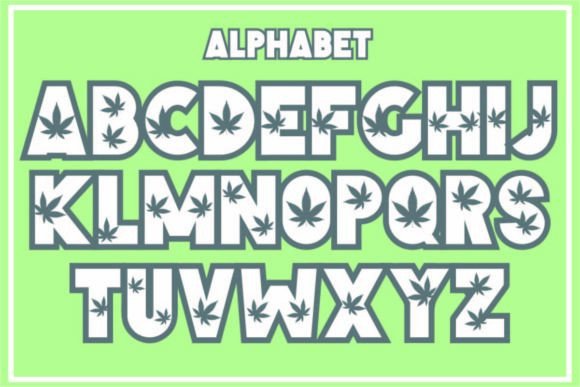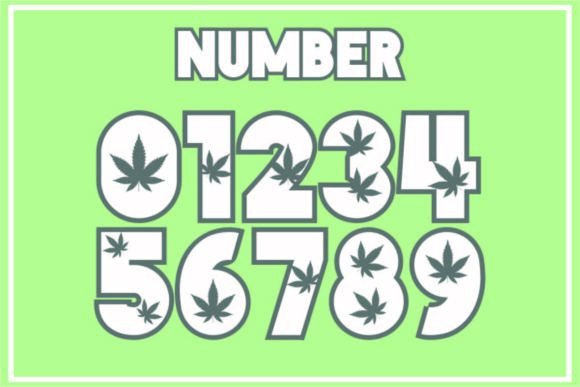
Cannabis Font: Elevate Your Designs with a Bold, Leafy Twist
Are you looking for a font that adds a touch of edginess and playfulness to your designs? Look no further than the Cannabis Font, a cool, bold decorative font that’s perfect for crafty ideas ranging from posters and stickers to t-shirts and other apparel items. Embellished with cannabis leaves, this original font is sure to make your designs stand out from the crowd.
What is Cannabis Font?
Cannabis Font is a unique, hand-crafted font that’s inspired by the cannabis culture. It’s a decorative font that’s designed to add a bold, eye-catching touch to your designs. The font features bold lines, curvaceous shapes, and intricate details that give it a truly one-of-a-kind look. The cannabis leaves that embellish the font add a playful, whimsical touch that’s sure to appeal to designers and crafters who want to create something truly original.
Features of Cannabis Font
- Bold and Decorative: Cannabis Font is a bold, decorative font that’s perfect for making a statement. Its thick lines and curvaceous shapes make it easy to read, even at small sizes.
- Cannabis Leaves: The font features intricate cannabis leaves that add a playful, whimsical touch to your designs. The leaves are carefully crafted to look realistic and detailed.
- Versatile: Cannabis Font is versatile and can be used for a wide range of design projects, from posters and stickers to t-shirts and other apparel items.
Uses of Cannabis Font
Cannabis Font is perfect for designers and crafters who want to add a touch of edginess and playfulness to their designs. Here are some ideas for using Cannabis Font:
- Posters and Flyers: Use Cannabis Font to create eye-catching posters and flyers for concerts, festivals, and other events.
- T-Shirts and Apparel: Add a bold, leafy twist to your t-shirts and other apparel items with Cannabis Font.
- Stickers and Decals: Use Cannabis Font to create stickers and decals that are sure to stand out.
- Branding and Packaging: Use Cannabis Font to create unique branding and packaging for your products.
Why Choose Cannabis Font?
There are many fonts available that are similar to Cannabis Font, but here are a few reasons why you might want to choose this font:
- Unique Design: Cannabis Font has a truly unique design that’s sure to make your designs stand out.
- High-Quality: The font is crafted with high-quality lines and details, making it perfect for printing and digital use.
| Font Name | Cannabis Font |
| Author | PX SHOP |
Cannabis Font is a cool, bold decorative font that’s perfect for designers and crafters who want to add a touch of edginess and playfulness to their designs. With its unique design, high-quality lines, and ease of use, this font is sure to become a favorite among designers and crafters. Whether you’re creating posters, t-shirts, stickers, or other design projects, Cannabis Font is a great choice.